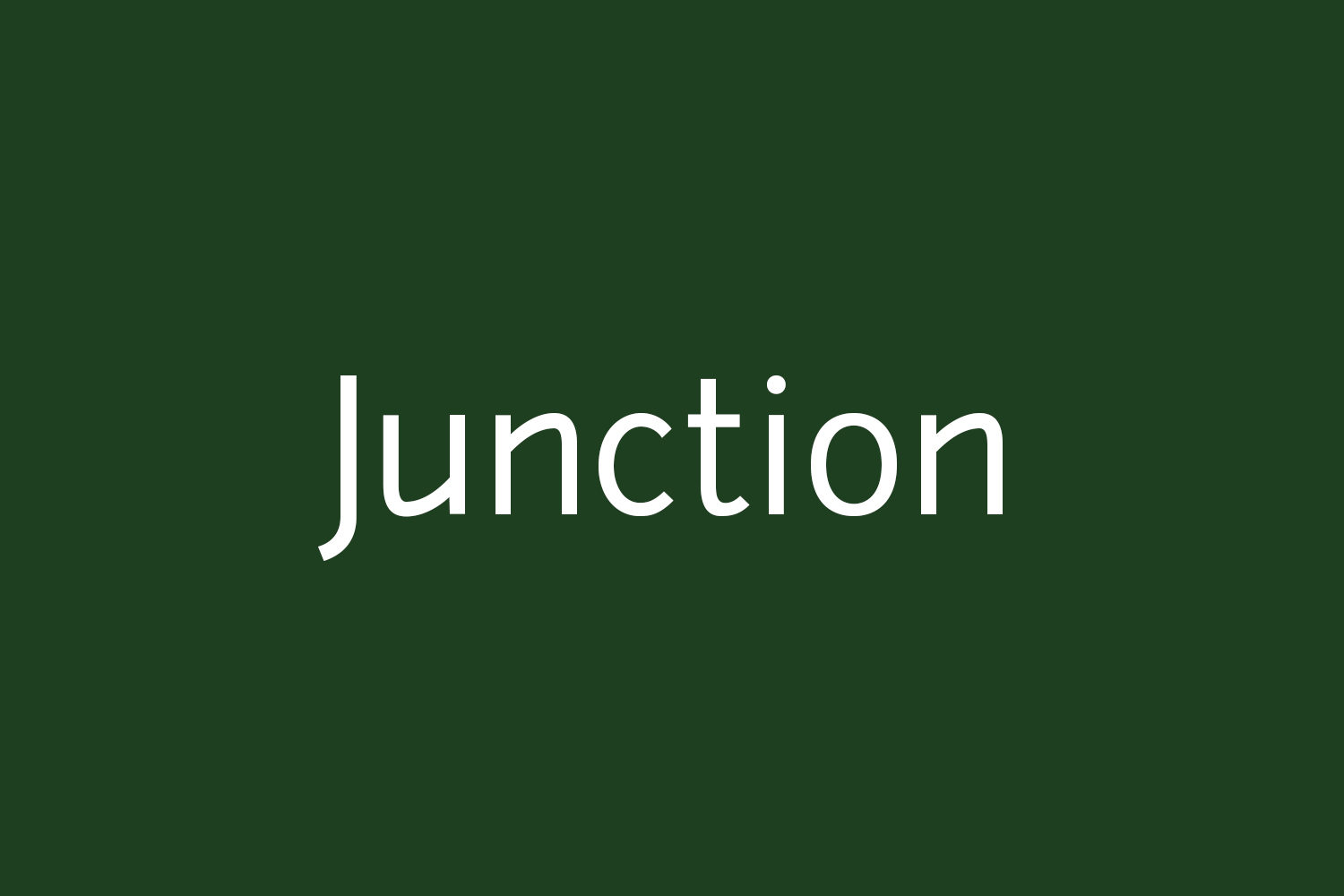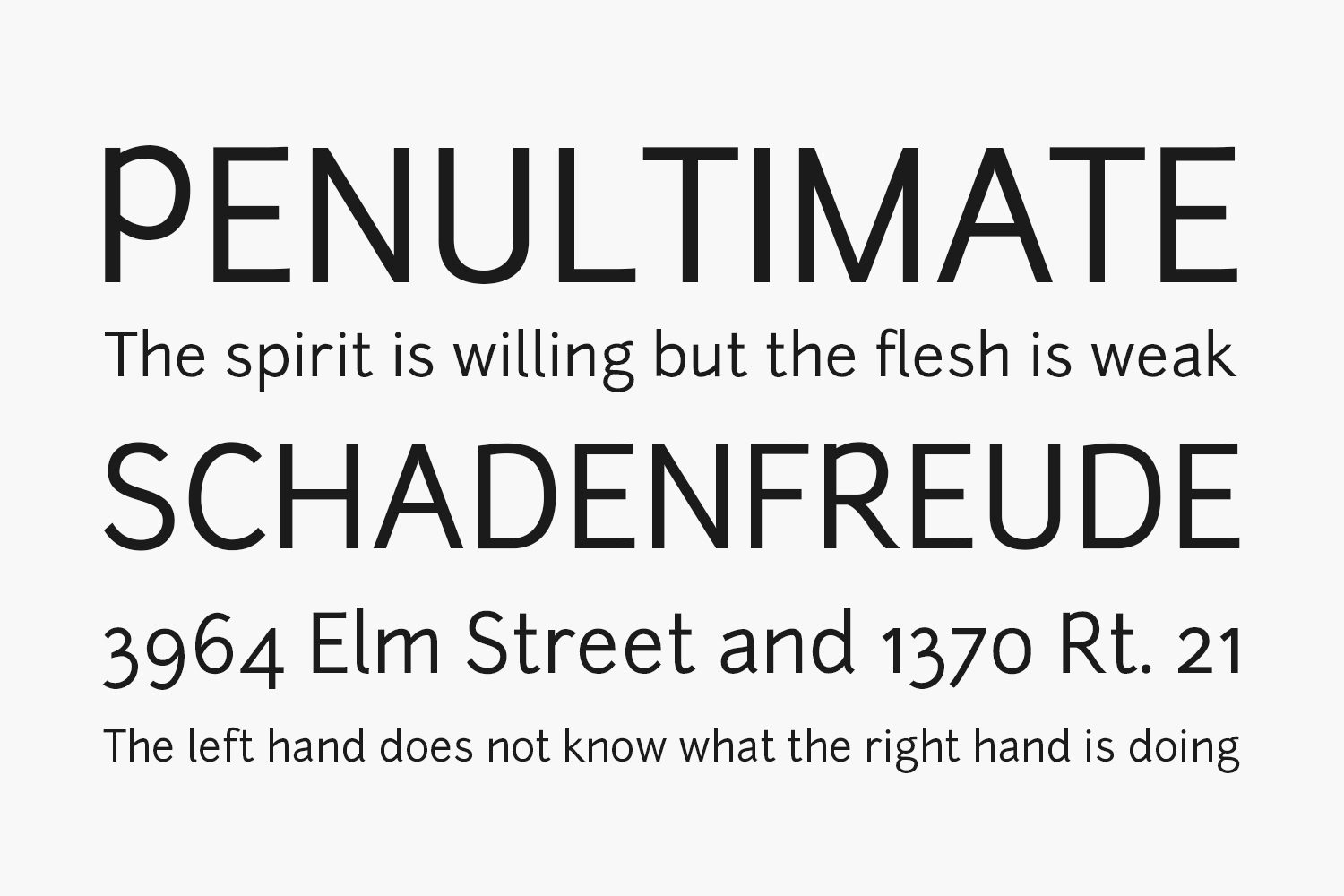
About Junction Free Font Family: inspired by my favorite humanist sans serif typefaces, such as Meta, Myriad, and Scala, Junction is where the best qualities of serif and sans serif typefaces come together. It has the hand drawn and human qualities of a serif, and still retains the clarity and efficiencies of a sans serif typeface. It combines the best of both worlds.
Designed by The League of Moveable Type